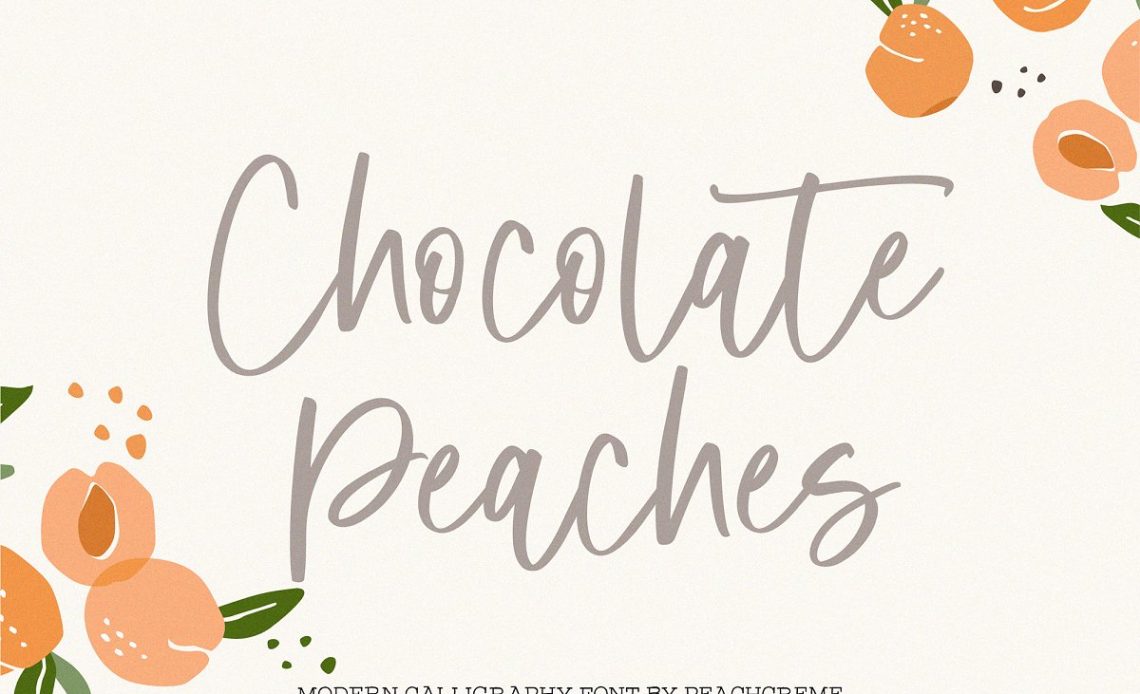
Looking for the perfect font to make your party posters pop? Look no further than Chocolate Peaches! This charming handwriting font is the latest creation from PeachCreme, and it's perfect for any project that needs a touch of whimsy.
With its bold, easy-to-read letters, Chocolate Peaches is a great choice for labels, signage, packages, stickers, and more. And if you're planning a boho-themed design that incorporates natural elements, patterns, textures, and lots of colors, this font is an absolute must-have.
So why wait? Whether you're a professional designer or just someone who loves to get creative, Chocolate Peaches is the perfect font for your next project. Download it today and see for yourself why it's one of the best fonts for party posters!